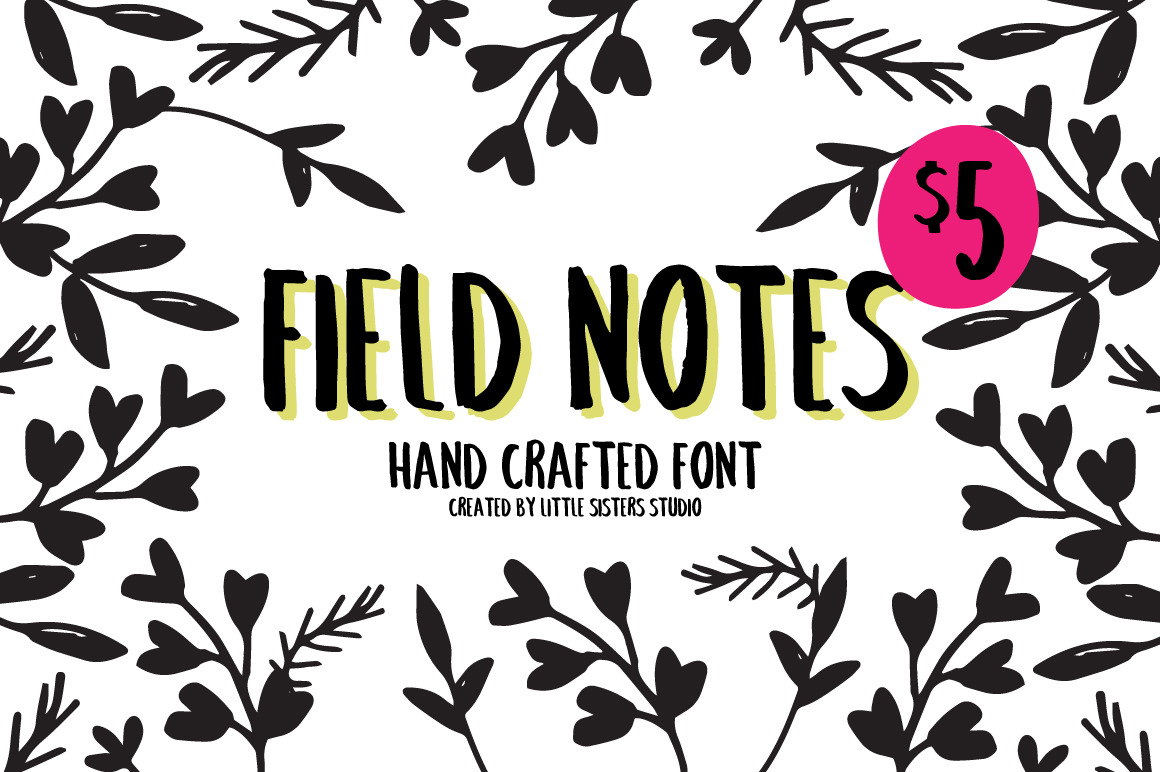
Take Note of our very first font. Hand drawn font perfect for adding a personal touch to all of your design projects. Great for cards, invitations, t-shirts and branding.
- Uppercase Letters
- Punctuation and Special Characters